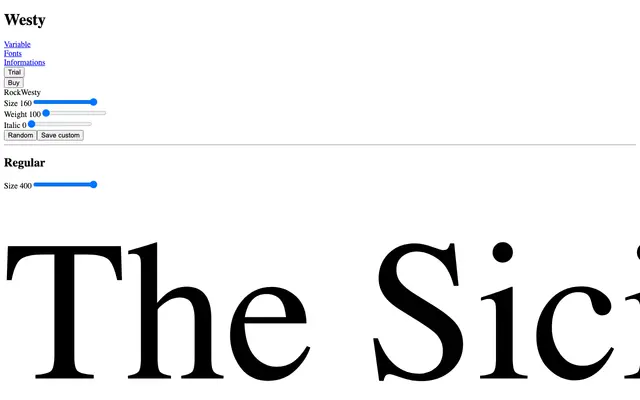
A variable display serif from Pizza Typefaces with axes for weight and italic, offering a range from thin to a bold 'Rock' style.
Available as a variable font with weight and italic axes, it spans from a delicate Thin Italic through to a heavier Rock variant with a distinct character. The specimen leans into editorial and poster applications where contrast between weights can be exploited. Pizza Typefaces offer trial fonts alongside purchase, keeping it accessible for testing across sizes.
The specimen shows a high-contrast, expressive serif with strong stylistic personality suited to display use. The variable axis controls weight and italic, with a 'Rock' style suggesting a bold, decorative display orientation.